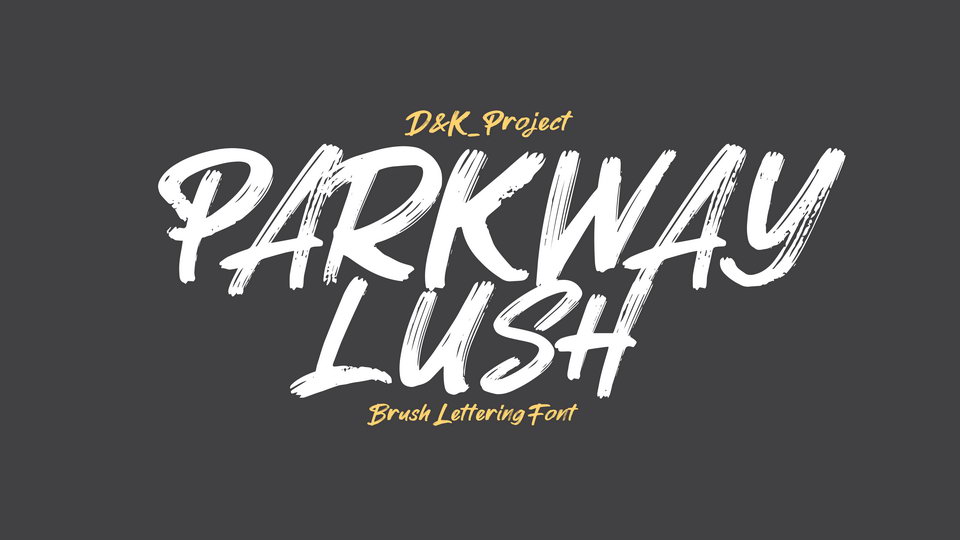
Download Parkway Lush font is a striking handlettering dry brush typeface. Great for headlines, posters, social media, banners, t-shits and other creative designs.